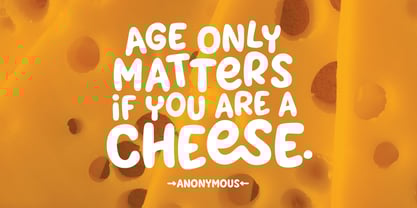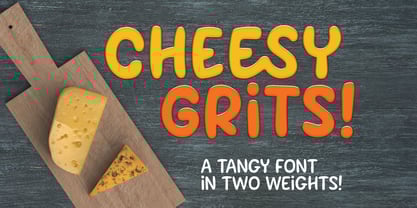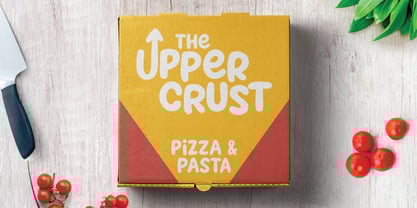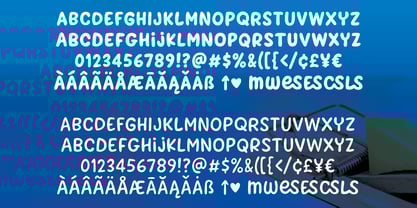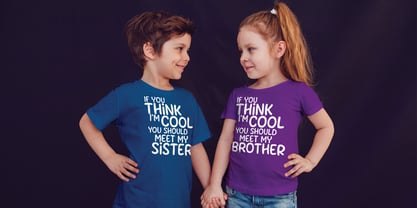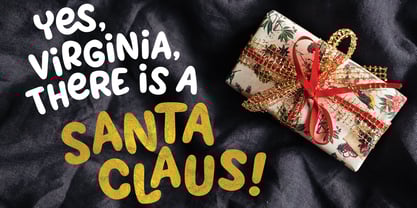
Cheesy Grits
La familia tipográfica Cheesy Grits fue diseñada por Missy Meyer y publicada por Missy Meyer. Cheesy Grits contiene 2 estilos y opciones de paquete familiar. Más información sobre esta familia
I'd never had grits until I moved to Florida. Almost everywhere I found them, they were loaded up with cheese. Which ... I'm never going to complain about added cheese, folks.
Cheesy Grits is a fun, fat, blobby font that's perfect for logos, branding, packaging, crafts, and tons of other projects. It has two uppercase sets for variety, plus a few additional double-letter ligatures and alternates.
I liked making Cheesy Grits so much, I decided to make a second "slim" version -- still as quirky and fun, but with thinner strokes, just so you have options! Both weights contain over 300 accented and extended Latin characters for language support.
Missy Meyer has decades of lettering and illustration under her belt; when looking to change careers in her 40s, graphic design seemed like the perfect way to go. She soon found her way into font design, and has been in love ever since. She specializes in quirky, casual, fun fonts that don't take themselves too seriously, but are still clean and easy to work with. (What did she do before design? It's been an amazing variety of jobs, including: bank teller, pizza chef, accountant, camp counselor, casino dealer, singing improv comedian, and game show host at Walt Disney World.)